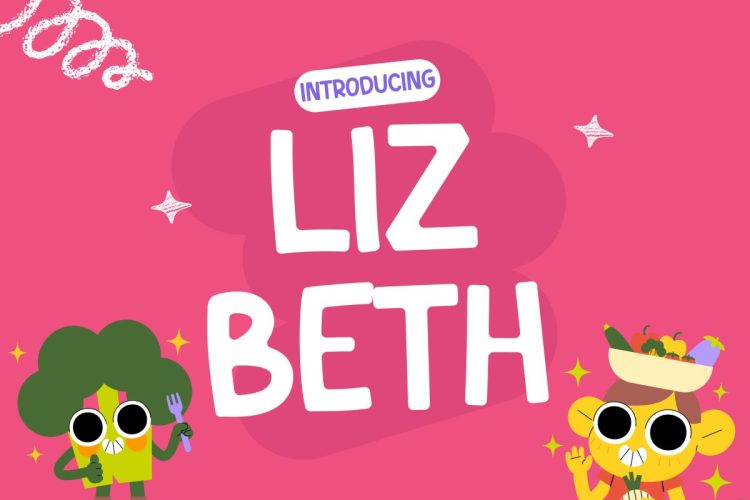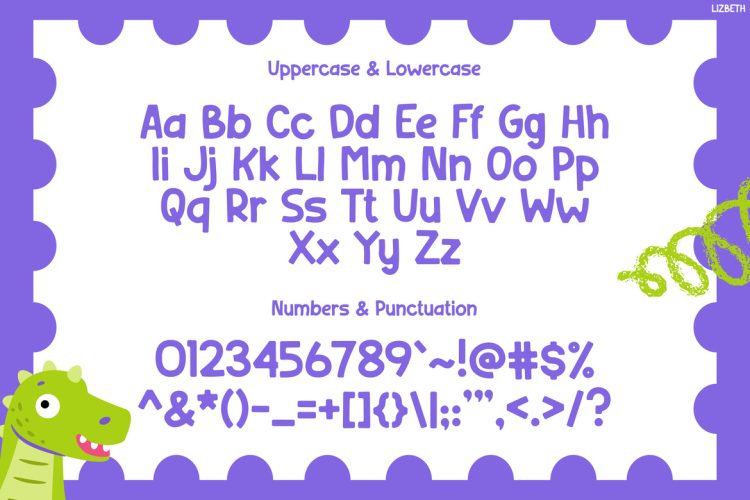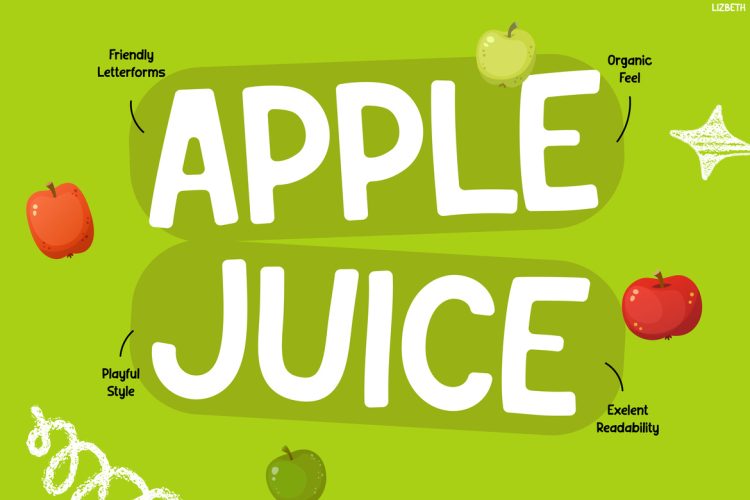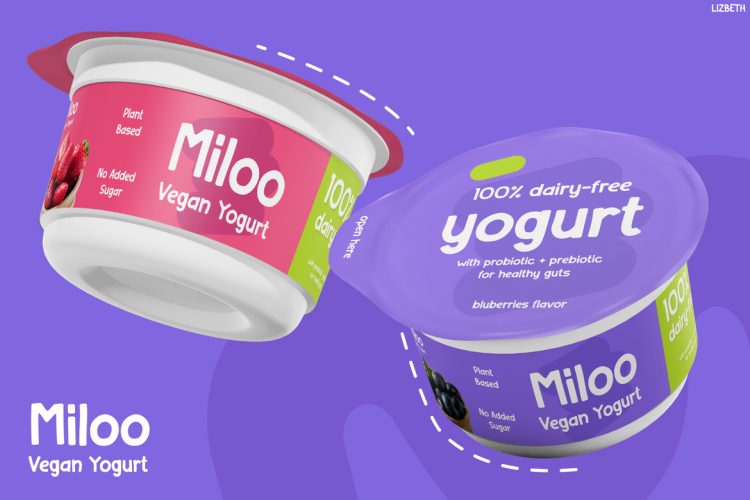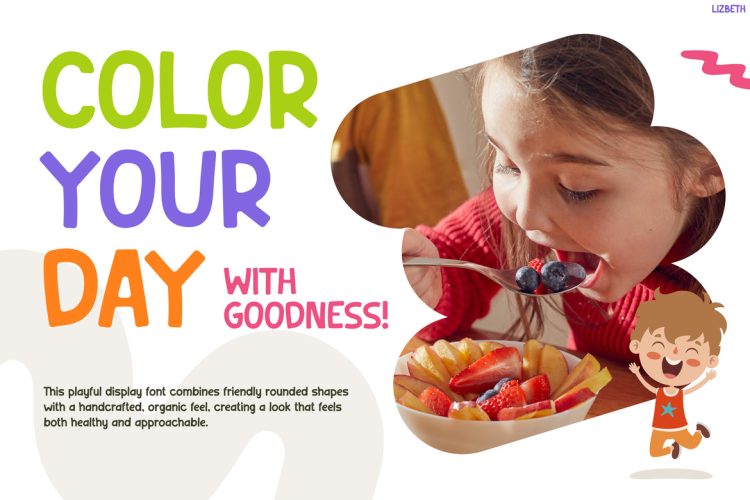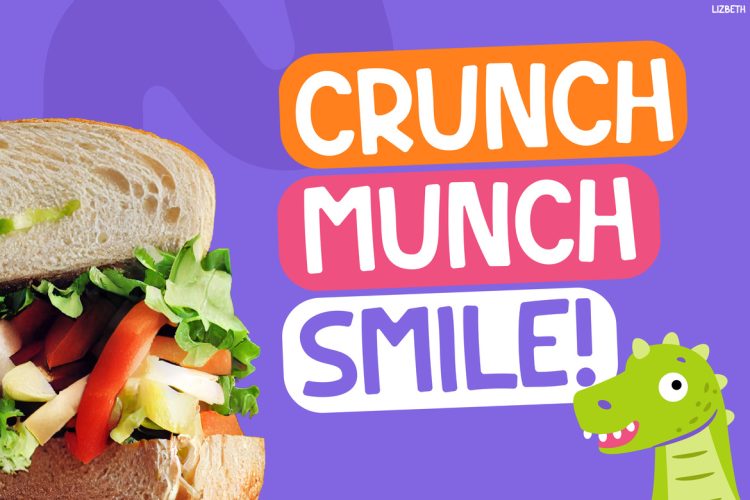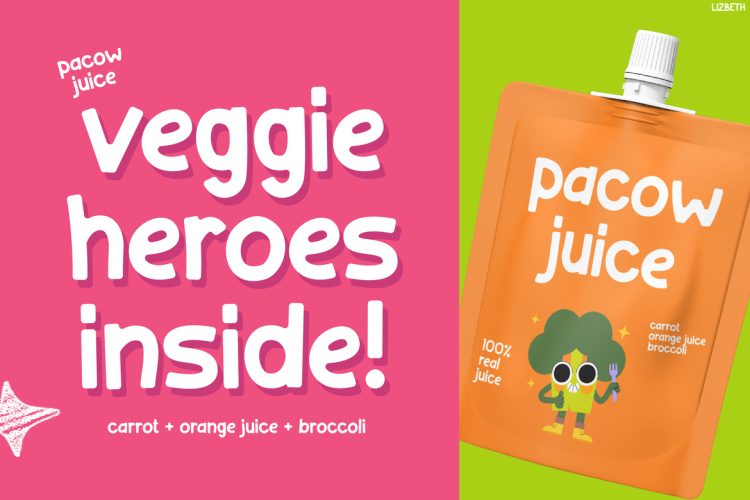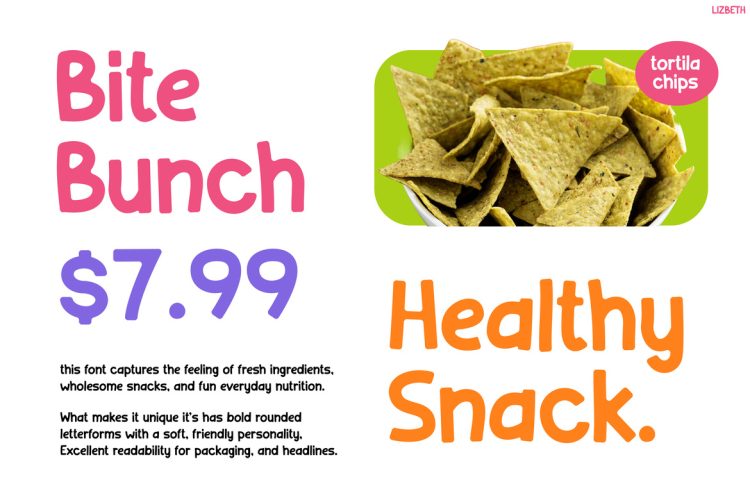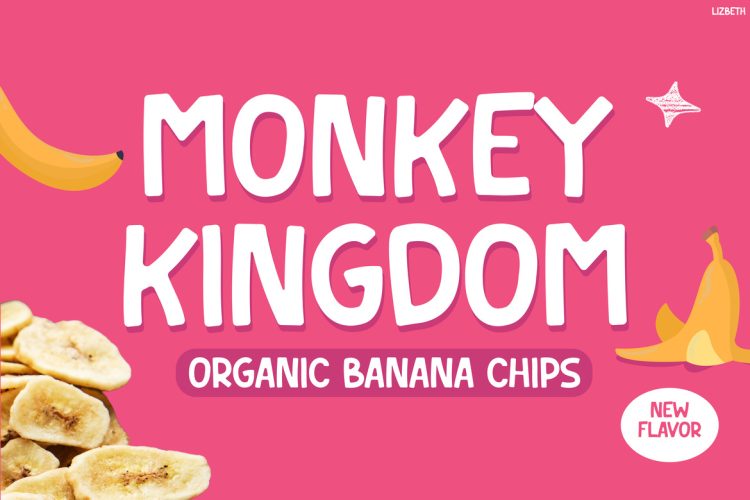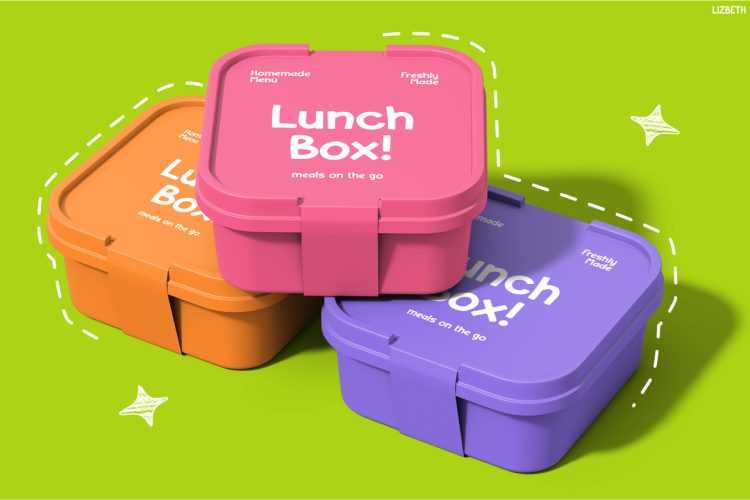
Kids Font Lizbeth โ Cheerful Kids Display Font
Kids Font Lizbeth is a fun and vibrant display font designed to fill every project with joy, color, and childlike imagination. Inspired by kids’ snacks, healthy food packaging, playful characters, and cheerful learning experiences, this font instantly creates a friendly and energetic visual atmosphere. Moreover, Lizbeth features soft rounded letterforms, bold proportions, and playful shapes that make every word feel lively and approachable. Unlike ordinary kids fonts, Lizbeth combines adorable aesthetics with excellent readability, allowing designs to remain both eye-catching and functional. As a result, this font is perfect for branding, packaging, educational materials, posters, and social media content. In addition, its colorful and friendly personality helps brands connect naturally with children and families. Therefore, Lizbeth becomes the ideal choice for projects that need a playful, welcoming, and memorable visual identity.
Why Kids Font Lizbeth Stands Out
Kids Font Lizbeth blends modern playful typography with a warm and cheerful personality. Furthermore, the rounded character shapes help headlines appear bold, fun, and easy to read. Thanks to its smooth curves and friendly design, this font creates a positive and energetic atmosphere that instantly attracts attention. At the same time, the balanced structure ensures readability across both print and digital platforms. Besides that, the playful appearance makes designs feel more engaging and emotionally connected to younger audiences. Additionally, Lizbeth includes uppercase, lowercase, numbers, punctuation, and multilingual support, giving designers the flexibility to create dynamic and creative layouts. Consequently, this font works beautifully for food packaging, school projects, toy branding, children’s products, and promotional materials.
Perfect For Who?
Kids Font Lizbeth is ideal for graphic designers, product brands, educators, content creators, publishers, and creative entrepreneurs who want typography filled with happiness and personality. In particular, this font is highly suitable for:
- Kids snack and food packaging
- Juice and beverage branding
- School and educational materials
- Children’s book covers
- Toy and game packaging
- Social media graphics and advertisements
- Birthday party supplies and invitations
- Kids merchandise and apparel
Additionally, brands targeting children, parents, schools, or family-oriented markets will benefit from its cheerful and approachable appearance. Therefore, Lizbeth becomes an excellent solution for projects that require fun visuals combined with professional usability.
Make Every Design Smile
Kids Font Lizbeth is more than just a display font because it transforms simple text into joyful visual experiences. Whether you are designing colorful packaging, creating educational content, or building a playful brand identity, this font helps your projects stand out with warmth and creativity. Moreover, its bright and energetic personality makes every message feel more engaging and memorable. So, if you are searching for a typeface that combines friendliness, creativity, and modern playful charm, Lizbeth is the perfect addition to your font collection. Grab it today and bring a smile to every design.